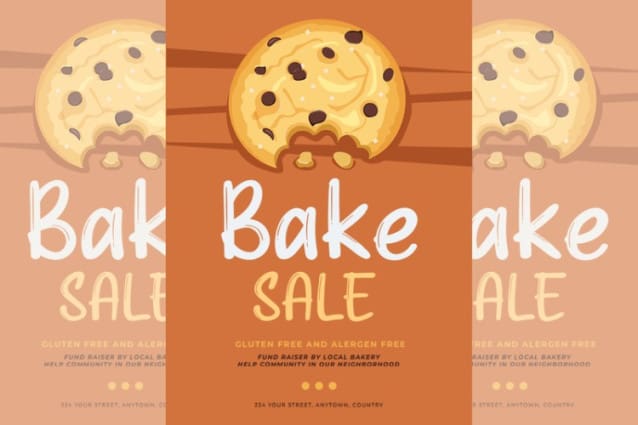
Raisin Topping Font
Raisin Topping Font is a delightful typeface that combines the sweetness of a dessert topping with playful, hand-drawn strokes. Its chunky, rounded letters and slightly irregular lines add a cozy, friendly vibe to any design, making it ideal for kid-centered projects or food themes. The name reflects its essence – each character looks carefully crafted, like adding raisins or sprinkles to a dessert. With its casual, handwritten style, Cute Font Raisin Topping gives text a natural, unpolished feel that is both charming and inviting.
The organic, smooth lines of this font is make it versatile, especially for projects needing warmth and friendliness. Each letter has a slight bounce, creating a dynamic look that’s perfect for titles, headings, and short text. This approachable style brings personality to any design, drawing the viewer in with a touch of playfulness. Simple yet effective, the font ensures readability while adding unmistakable charm. Its food-inspired appeal makes it a great choice for projects needing a sweet, comforting look.